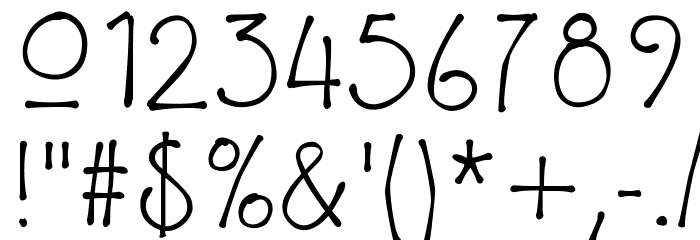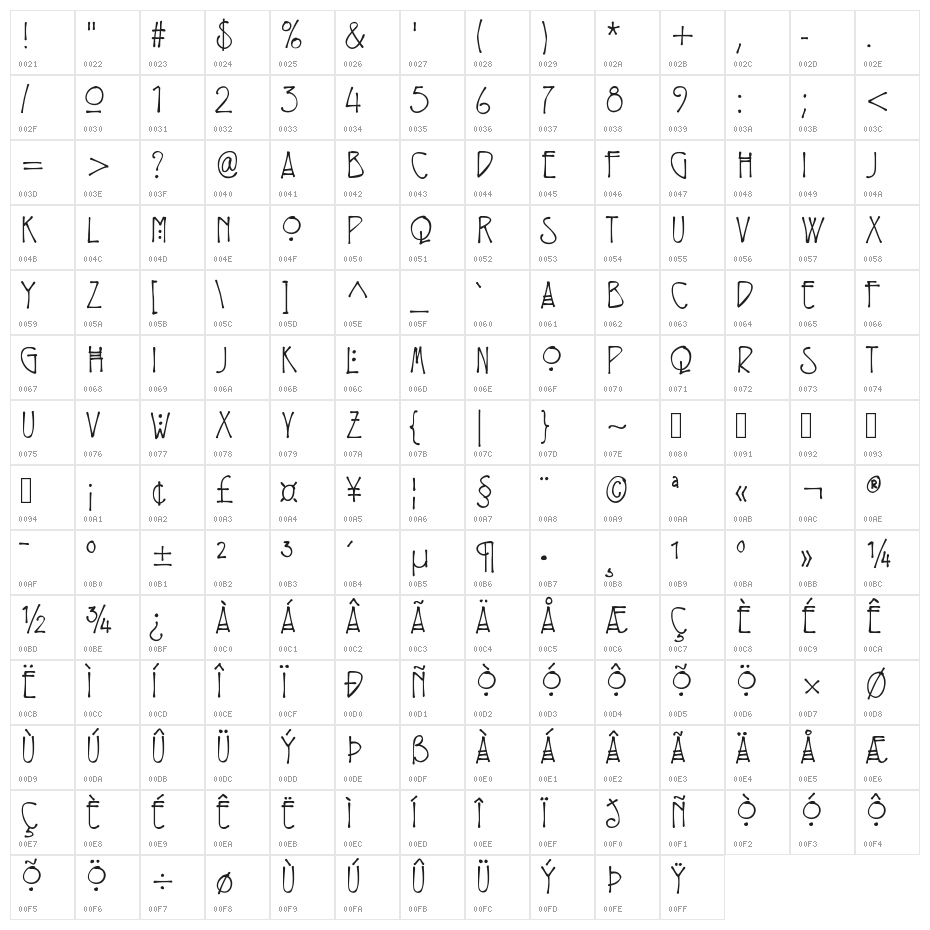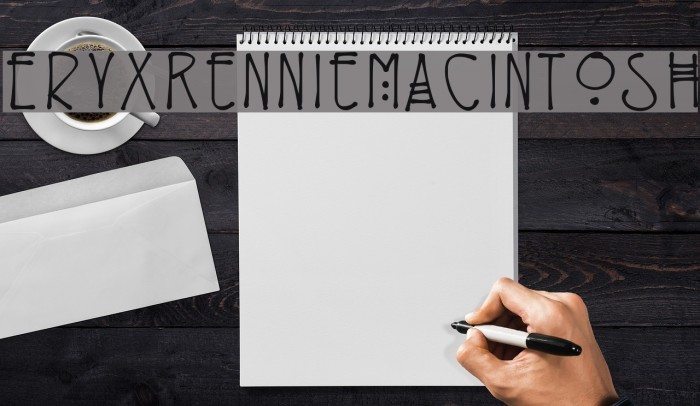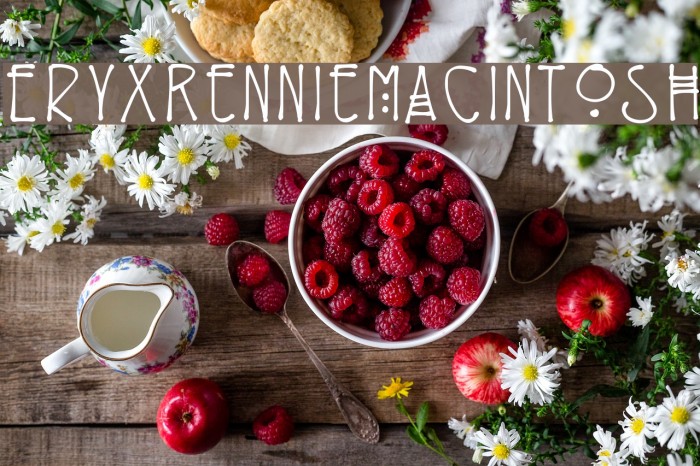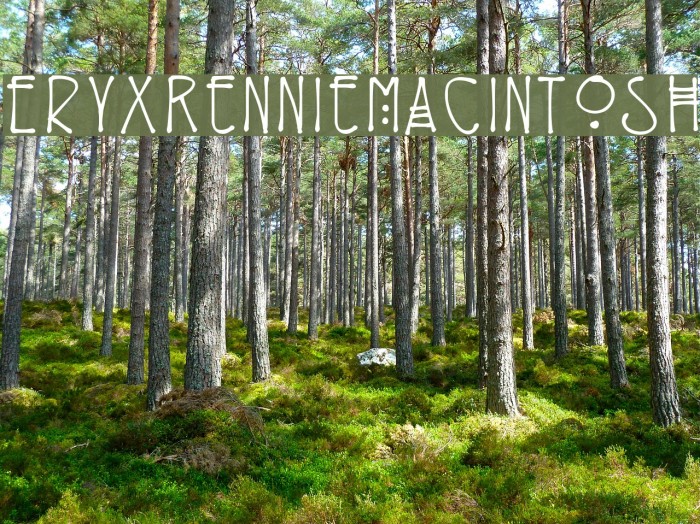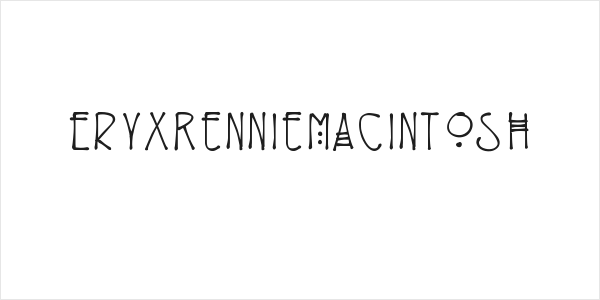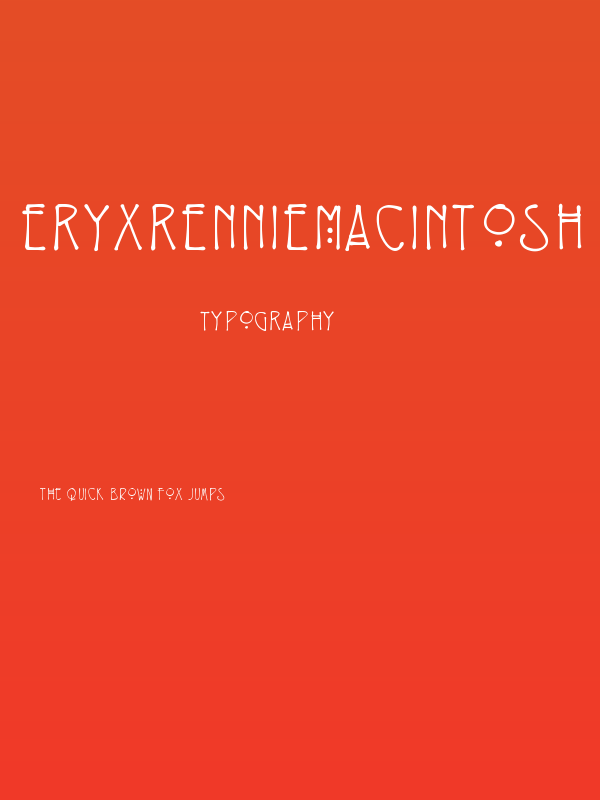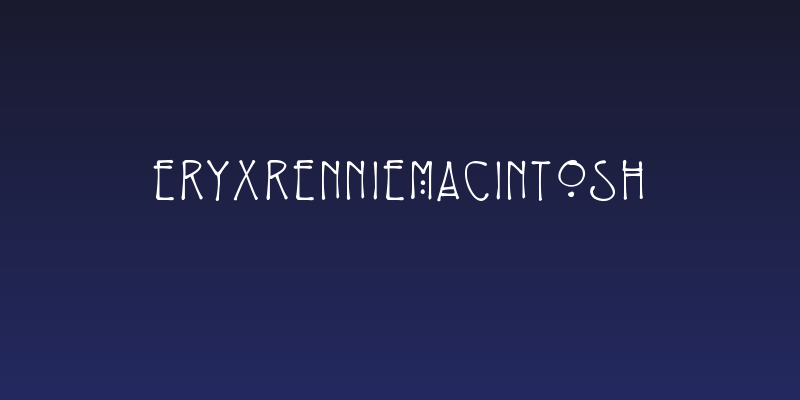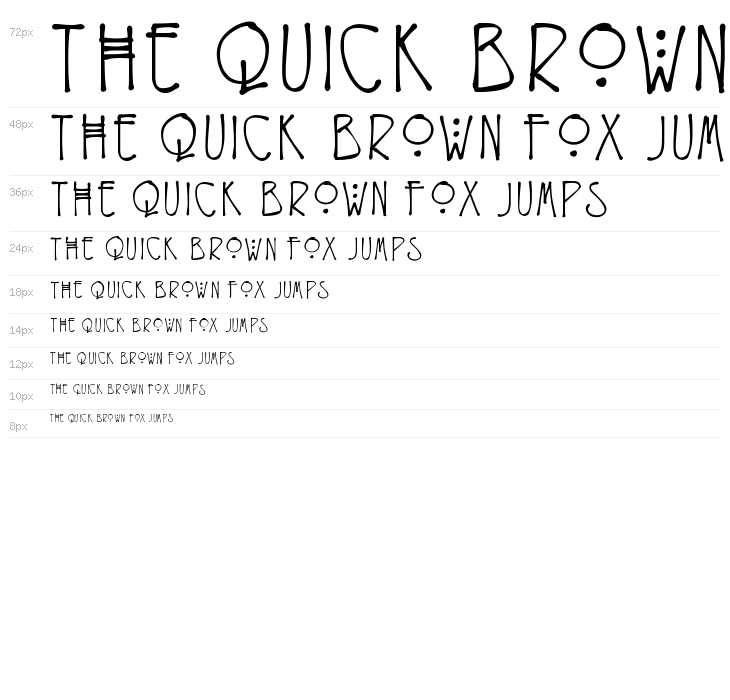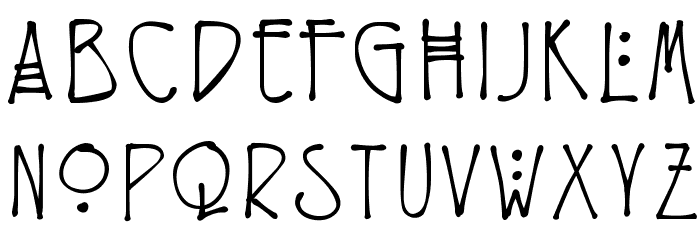
EryxRennieMacintosh Font
EryxRennieMacintosh Description
This font features a unique and artistic style with a hand-drawn appearance. The characters are tall and slender, with a playful and whimsical touch. The uppercase letters have a distinct geometric influence, while the lowercase letters maintain a consistent flow. The numbers are bold and clear, making them easily readable. Special characters are creatively designed, adding to the font's overall charm. This font is perfect for projects that require a touch of creativity and individuality.
| Overall Style | Artistic and Whimsical |
| Use Case | Headlines, Artistic projects, Branding |
| Proposed Projects | Ideal for creative projects such as children's books, artistic posters, and unique branding materials. |